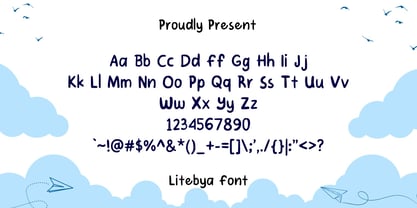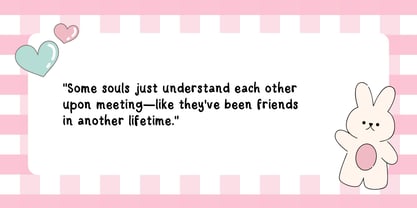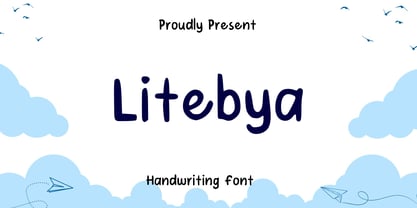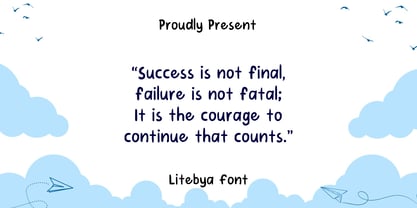
Litebya
by Sidkia Fonts
The Litebya Font Family was designed by and published by Sidkia Fonts. Litebya contains 1 styles. More about this family
The Litebya Font is a playful and friendly handwritten style that gives off a casual yet neat vibe. Its rounded edges and smooth strokes make it approachable and easy to read, while still keeping a touch of personality. The font feels lighthearted, making it perfect for children’s books, quotes, posters, greeting cards, or any design that needs a warm and cheerful look.
It combines readability with a fun handwritten charm—ideal for creative projects that want to feel positive, uplifting, and personal.
Foundry: Sidkia Fonts